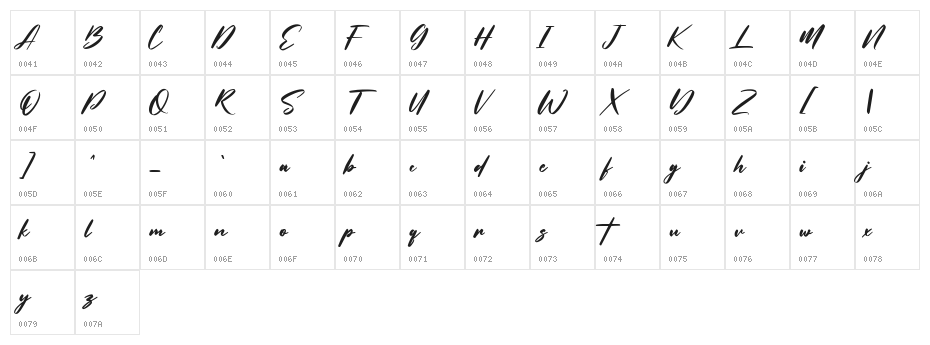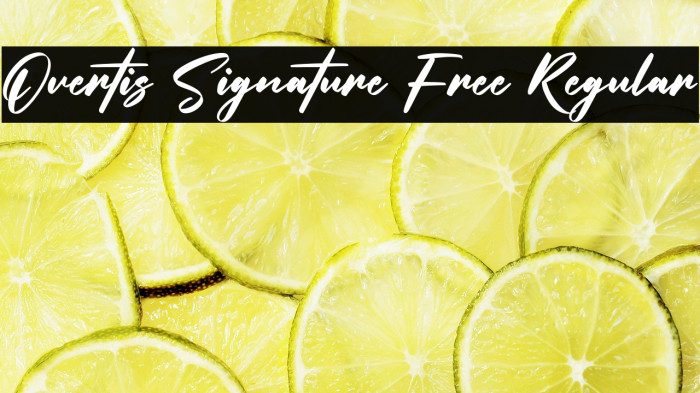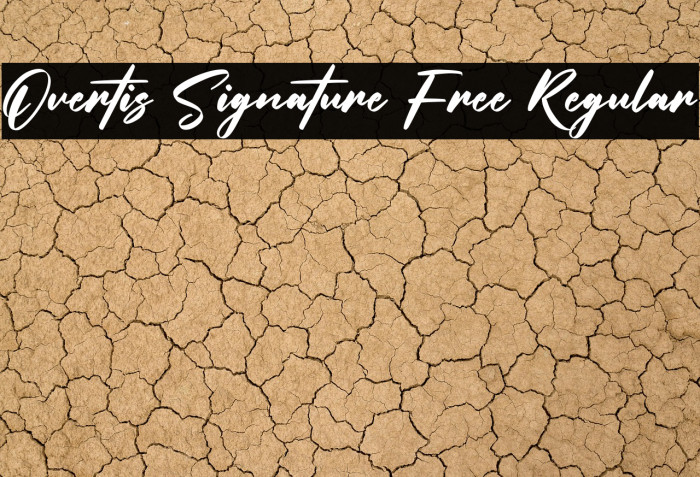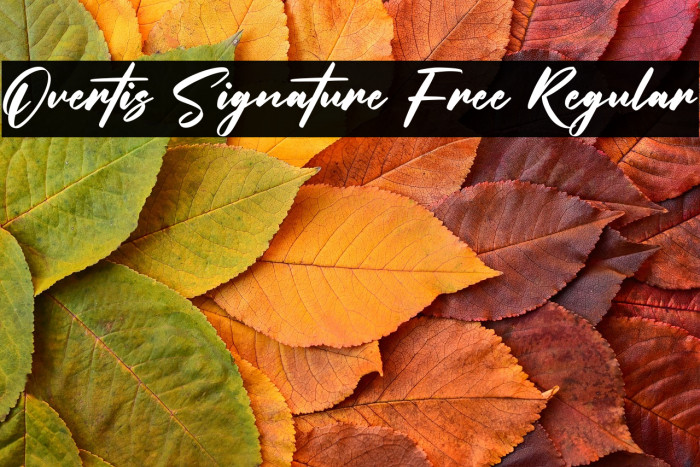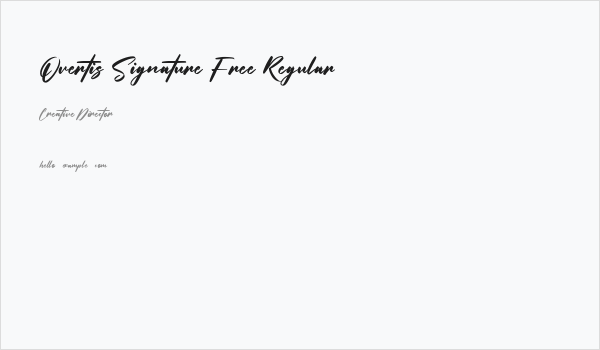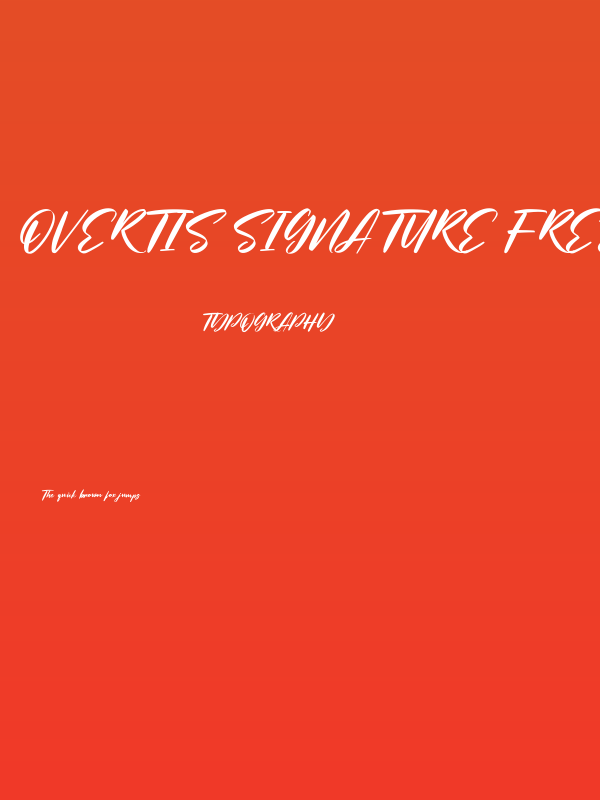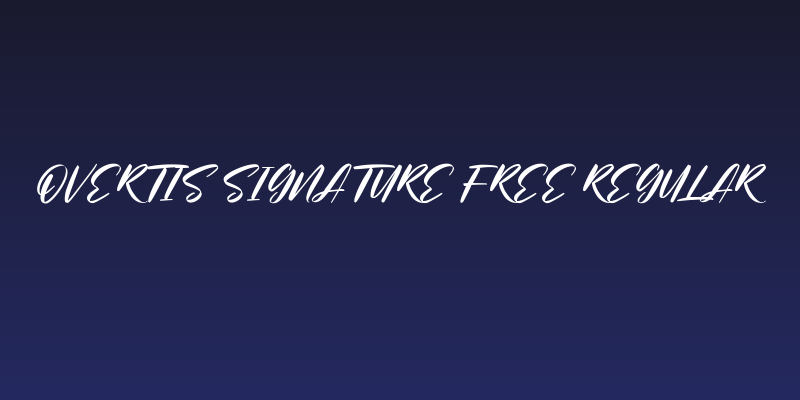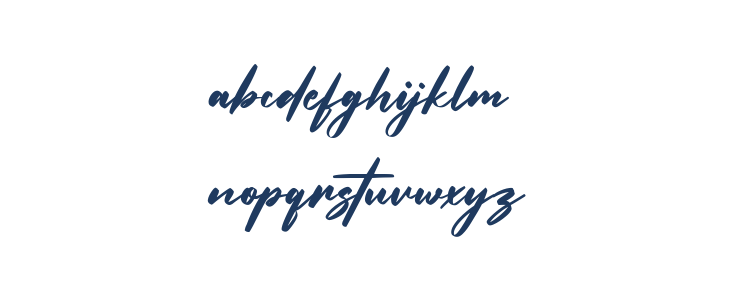
Overtis Signature Free Regular Font
Overtis Signature Free Regular Description
This font exudes a modern and elegant style with its fluid, cursive script. The letters are designed with a natural flow, mimicking the strokes of a skilled calligrapher. The uppercase letters are bold and prominent, while the lowercase letters maintain a graceful and smooth appearance. The font's overall aesthetic is both sophisticated and approachable, making it suitable for a variety of design projects. Its high contrast in stroke thickness adds to its dynamic and eye-catching appeal, ensuring that it stands out in any context.
| Proposed Projects | Ideal for wedding invitations, branding, logos, and elegant packaging designs. |